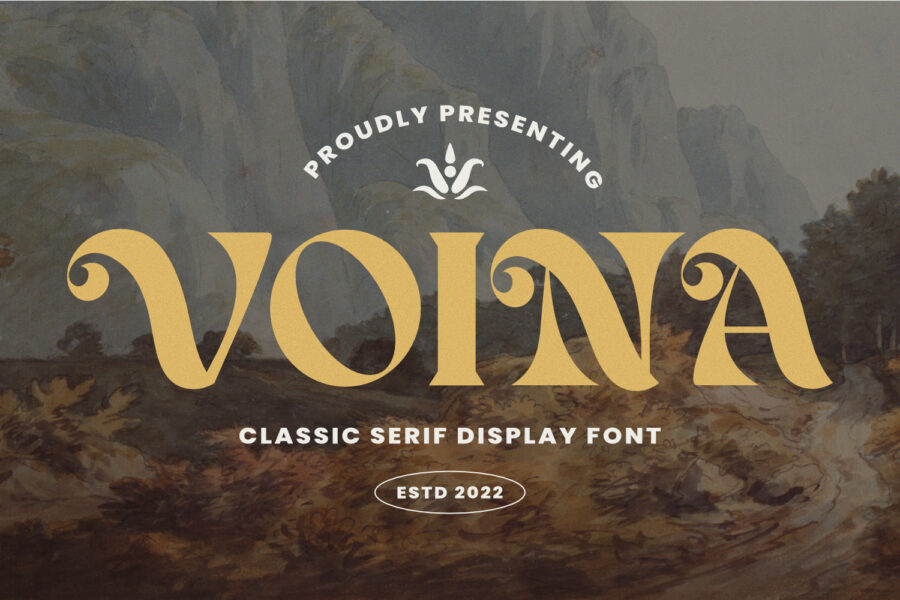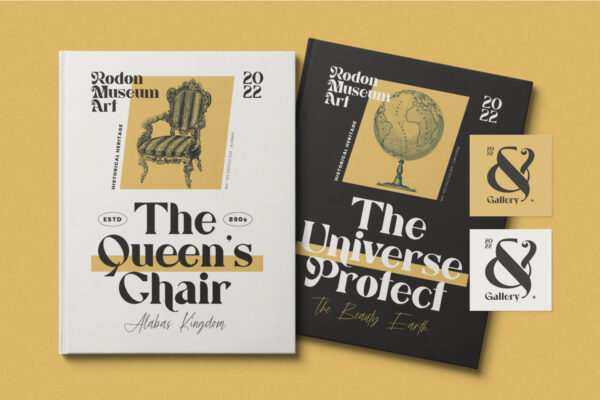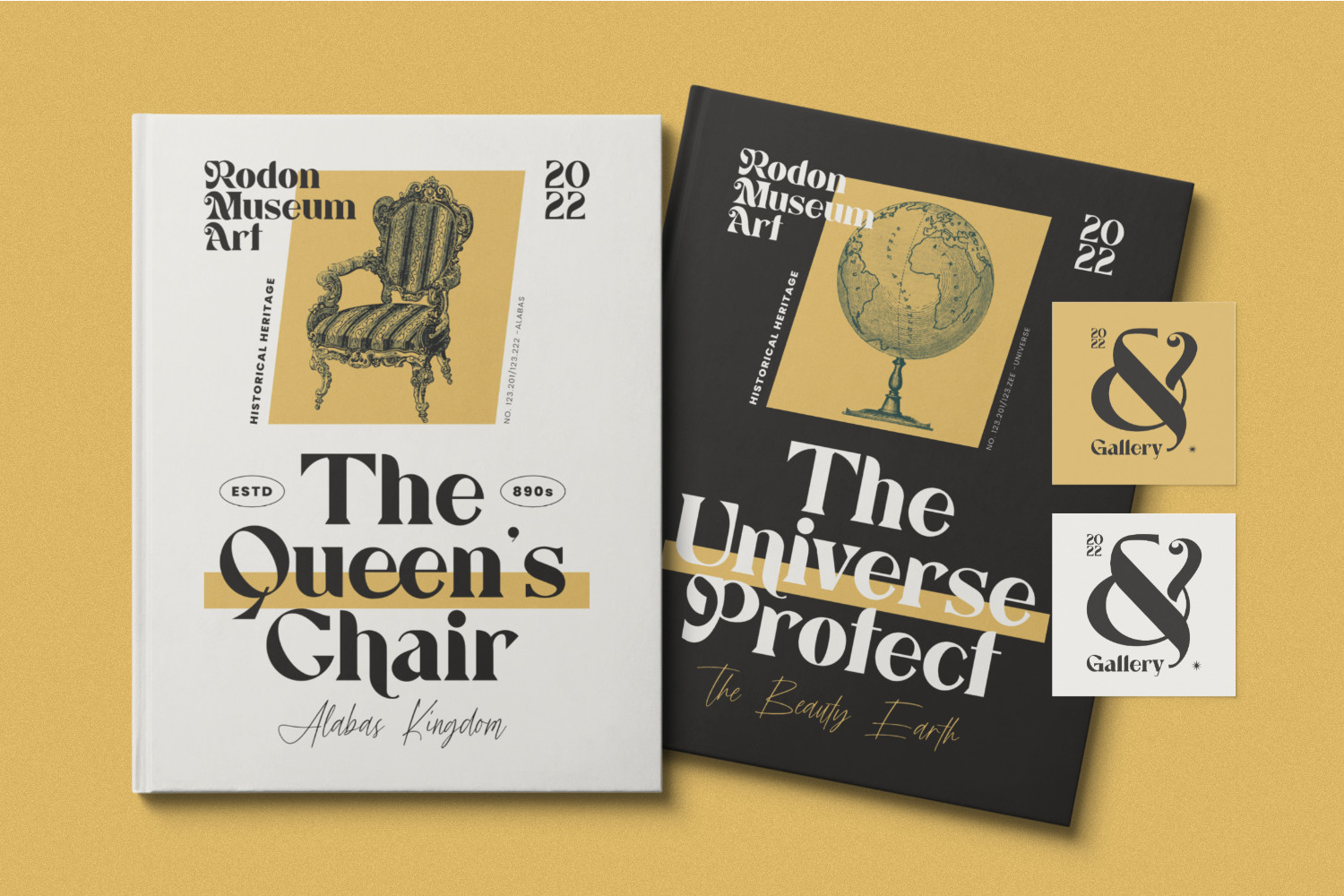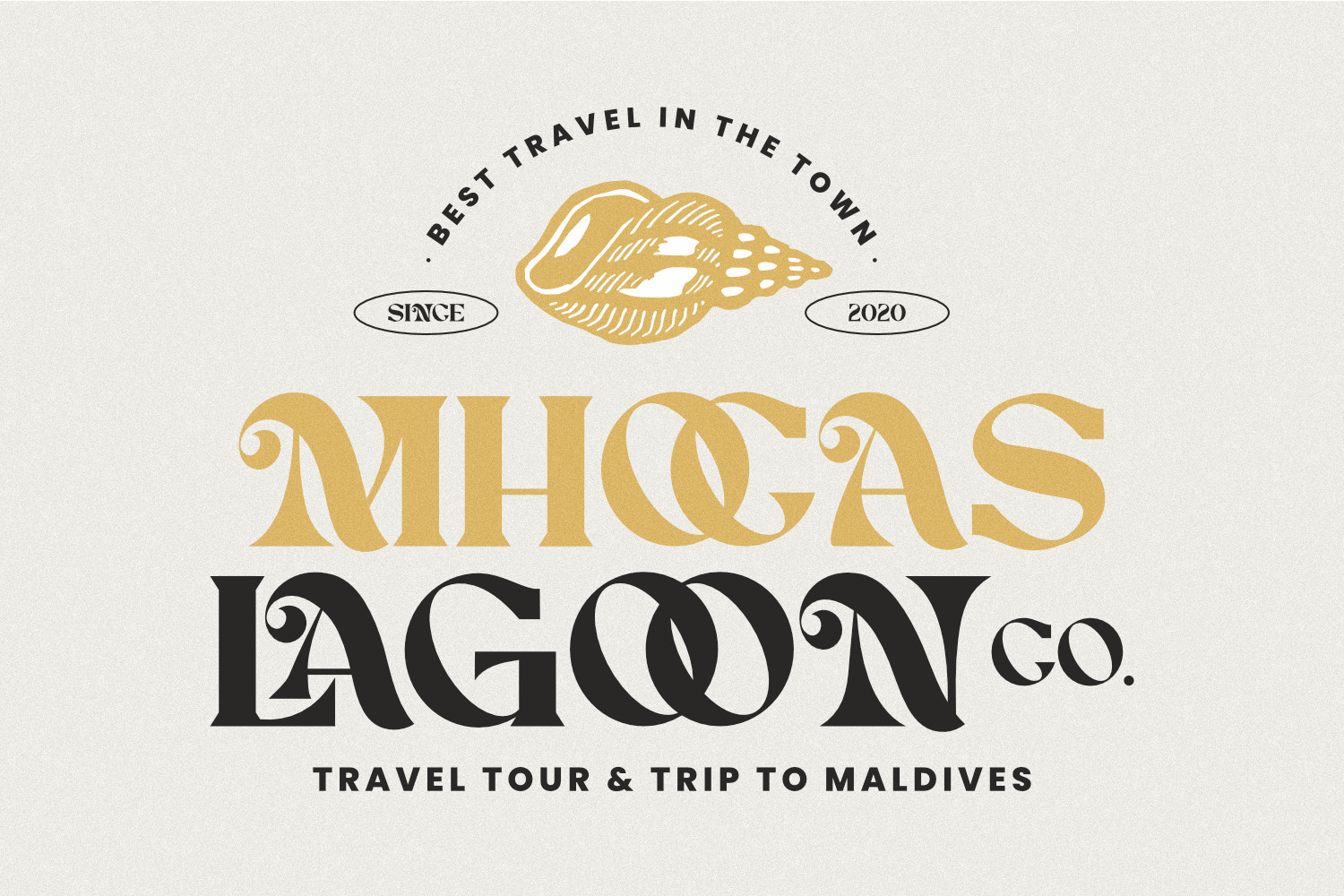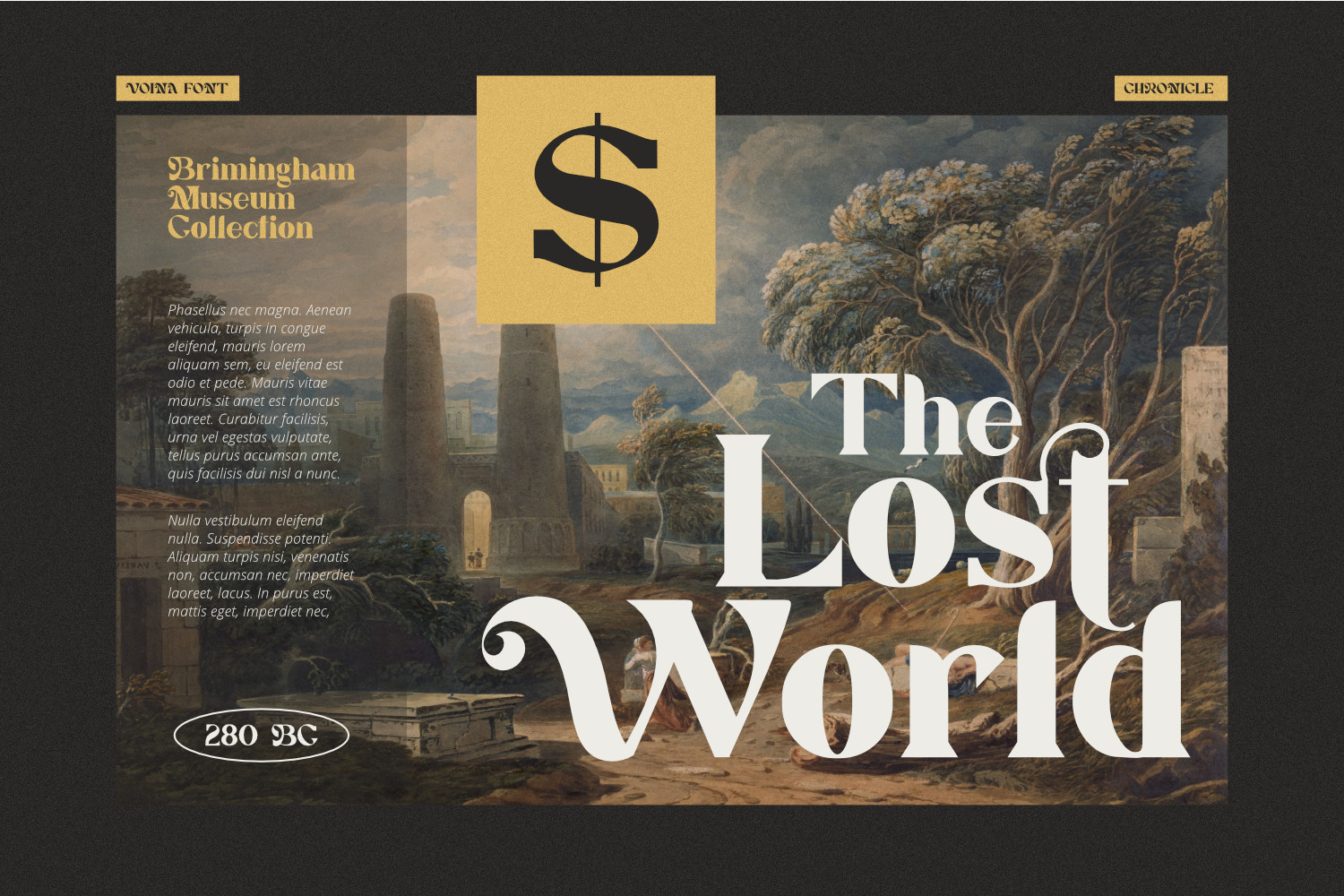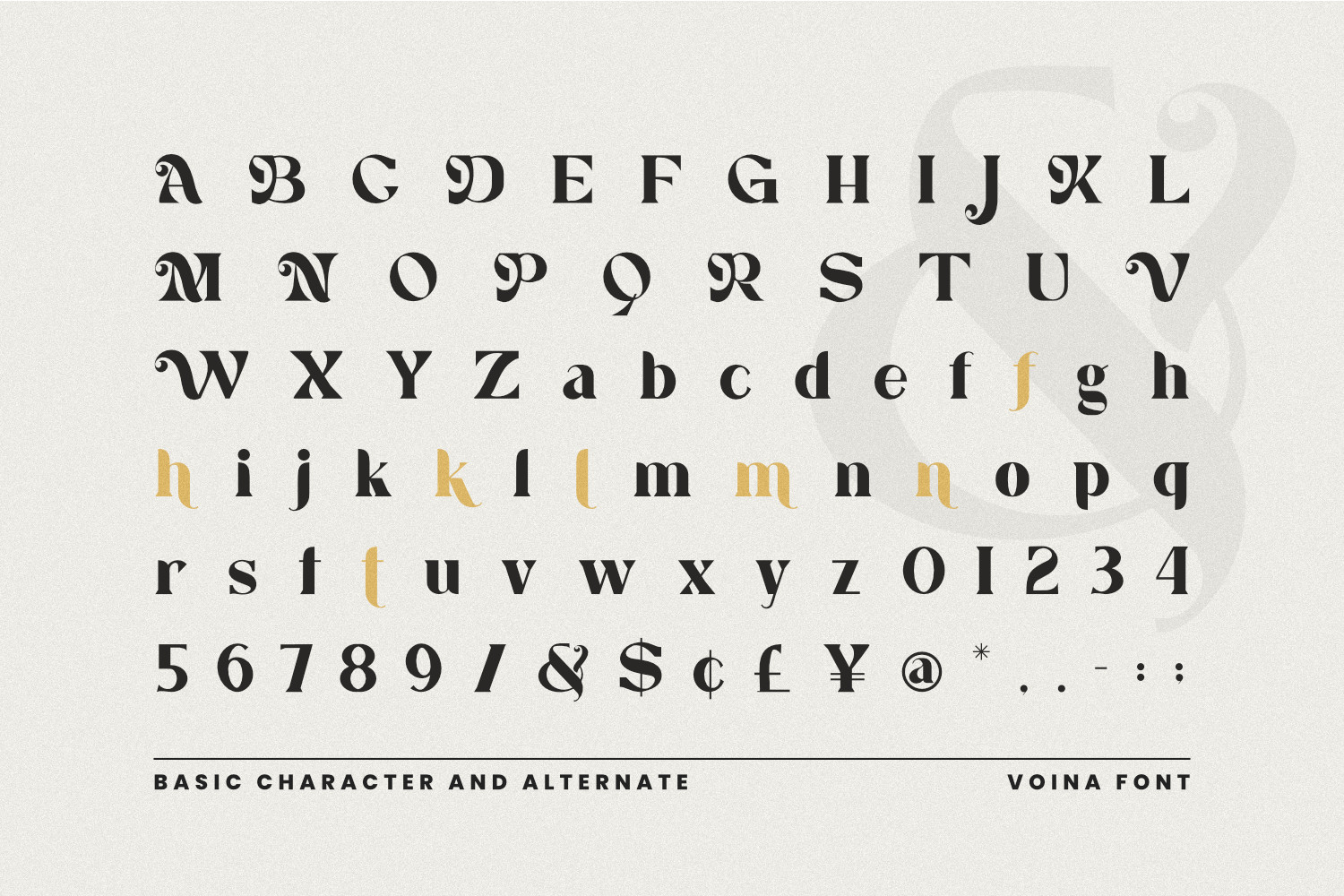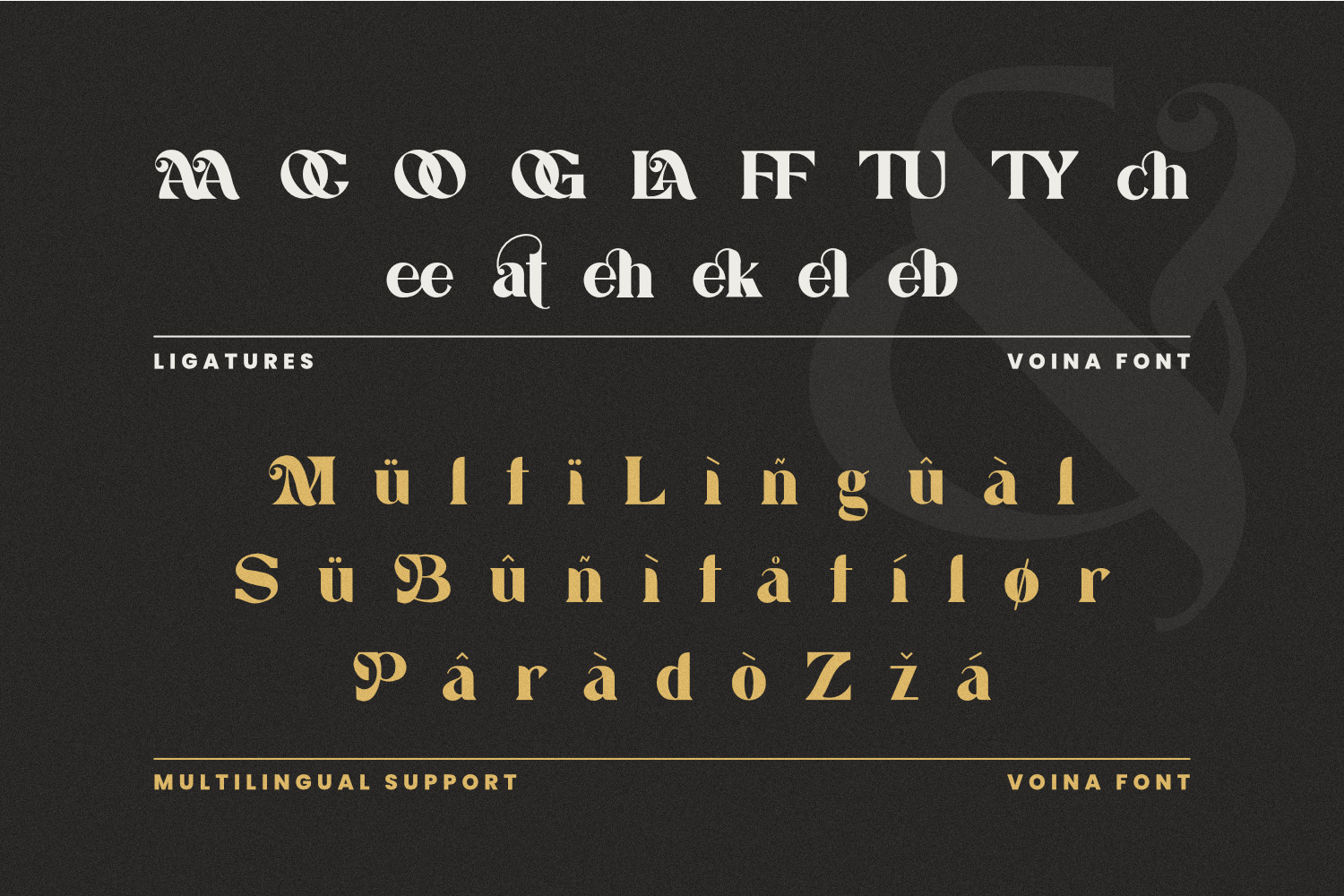
Voina is a classic serif display font that captures the essence of vintage charm with a bold modern twist. It features elegant curves and artistic swashes that create a sophisticated yet striking appearance, making it ideal for editorial design, museum titles, book covers, and high-end branding. Each character is crafted with attention to detail, combining strong contrast and stylish terminals to evoke a sense of heritage and authority.
This font includes alternate characters and stylish ligatures that enhance typographic creativity and layout variety. It supports multilingual characters, adding versatility to both historical and contemporary projects. With its timeless personality and dramatic aesthetics, Voina makes every word stand out with regal sophistication.
Voina